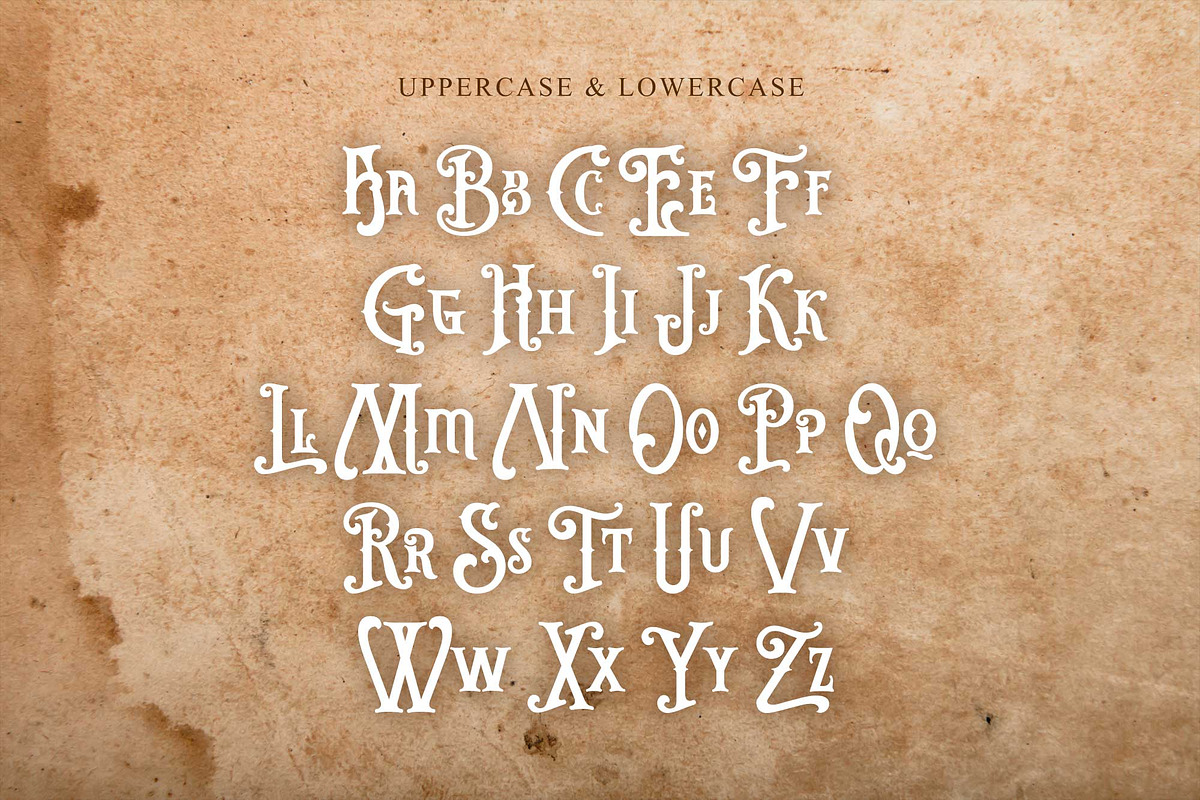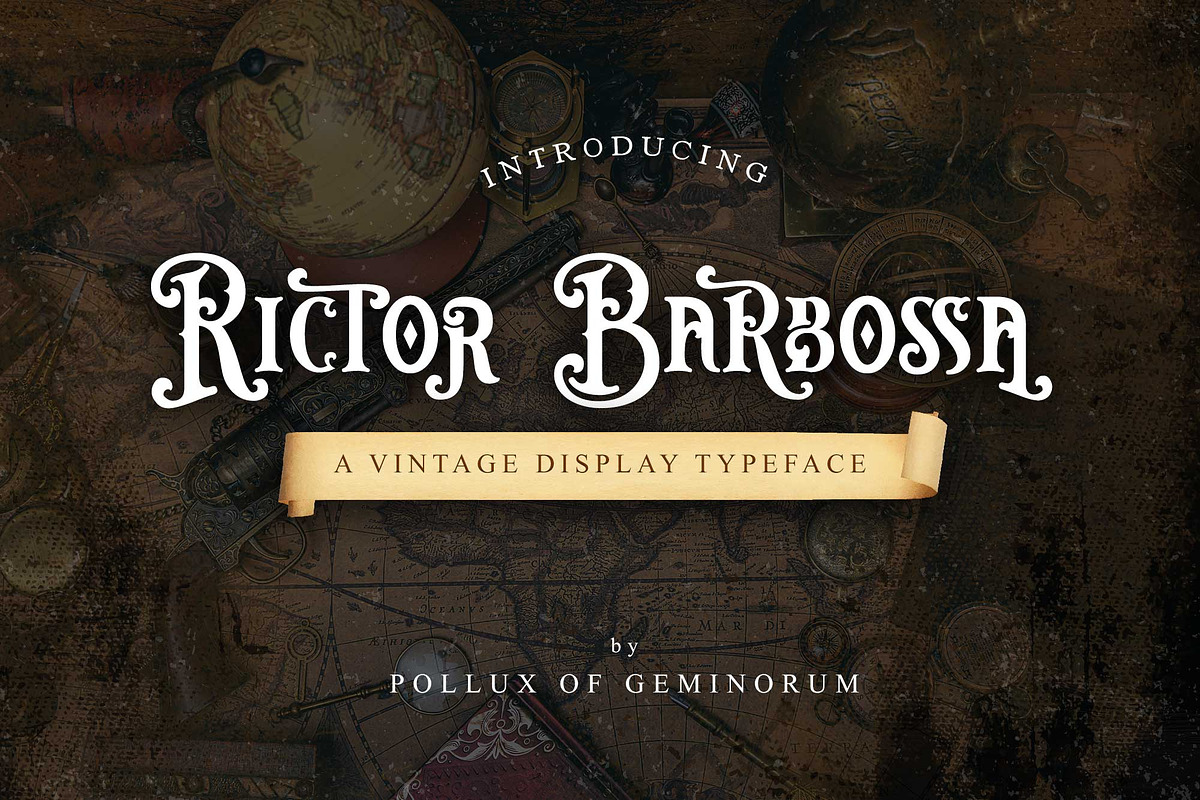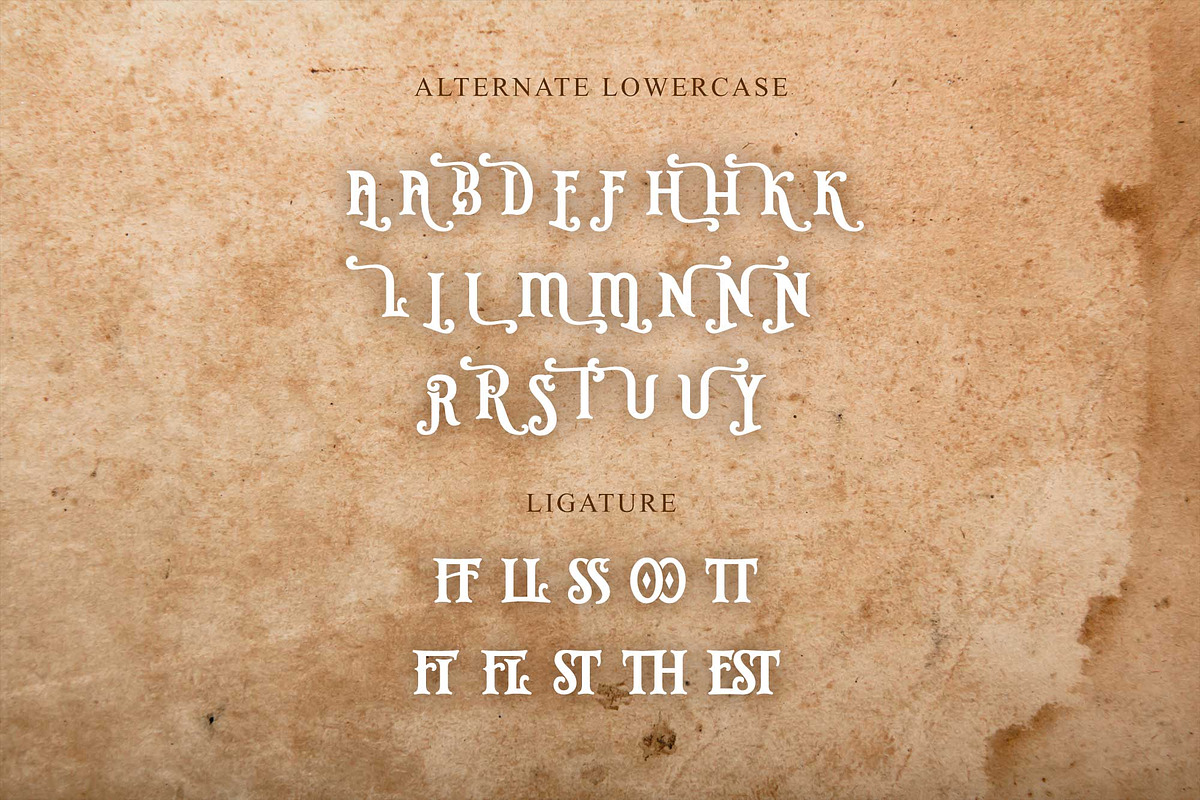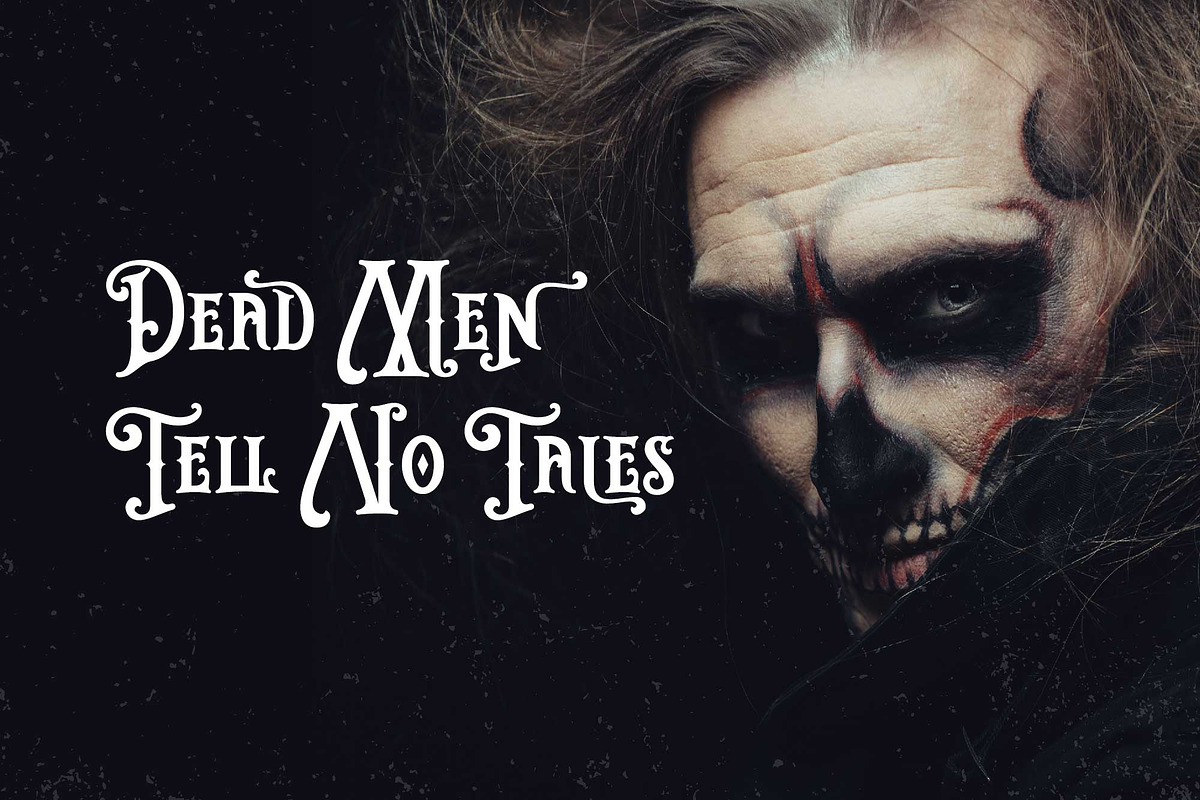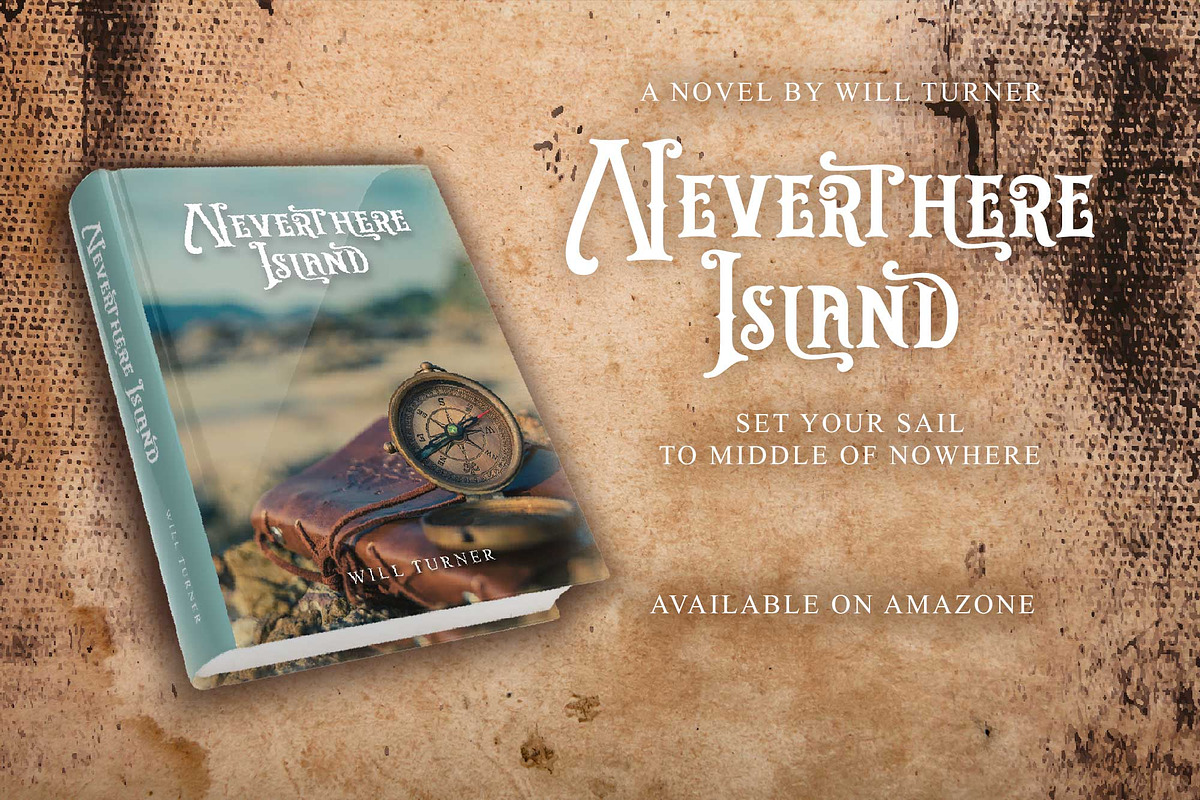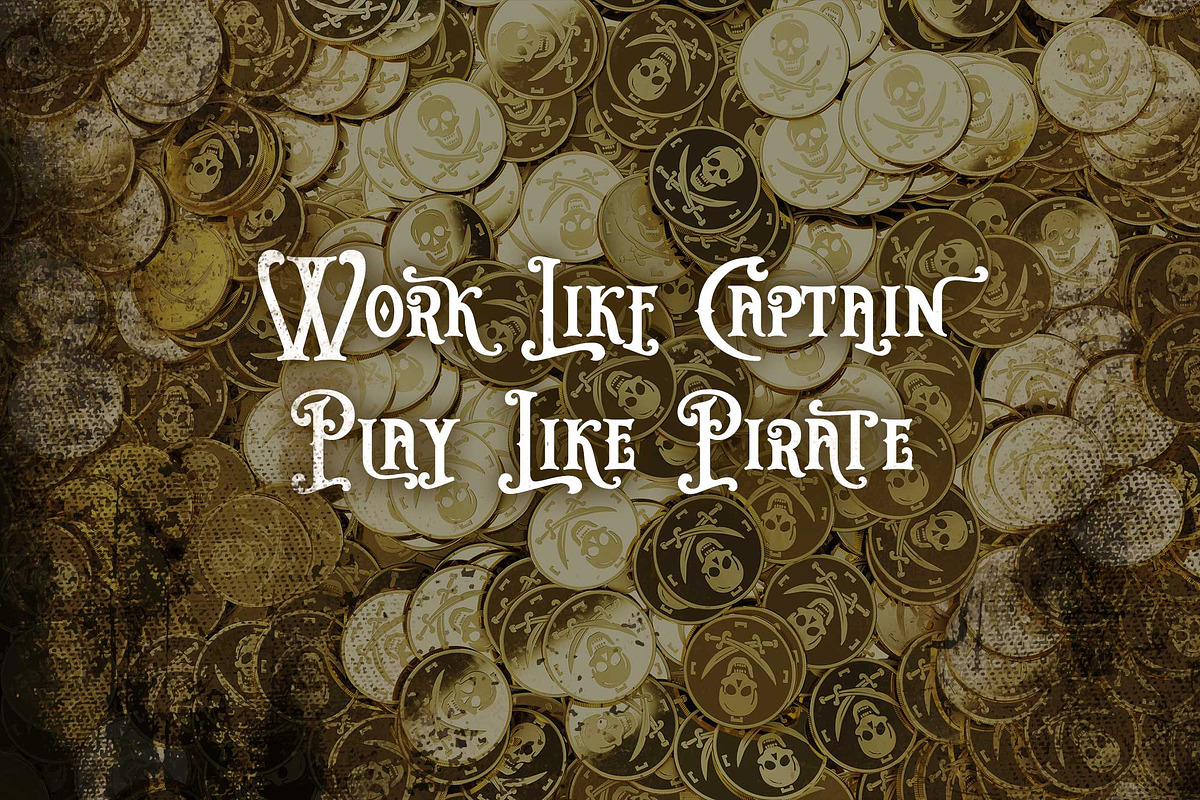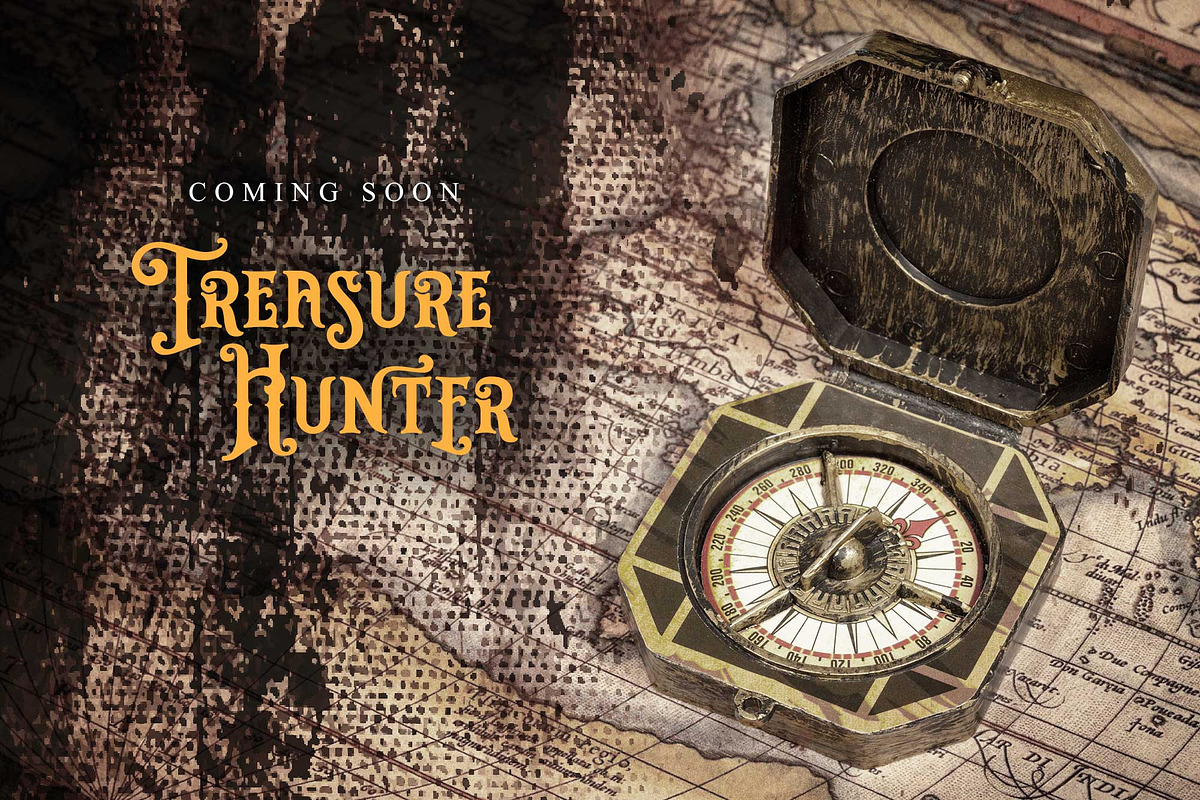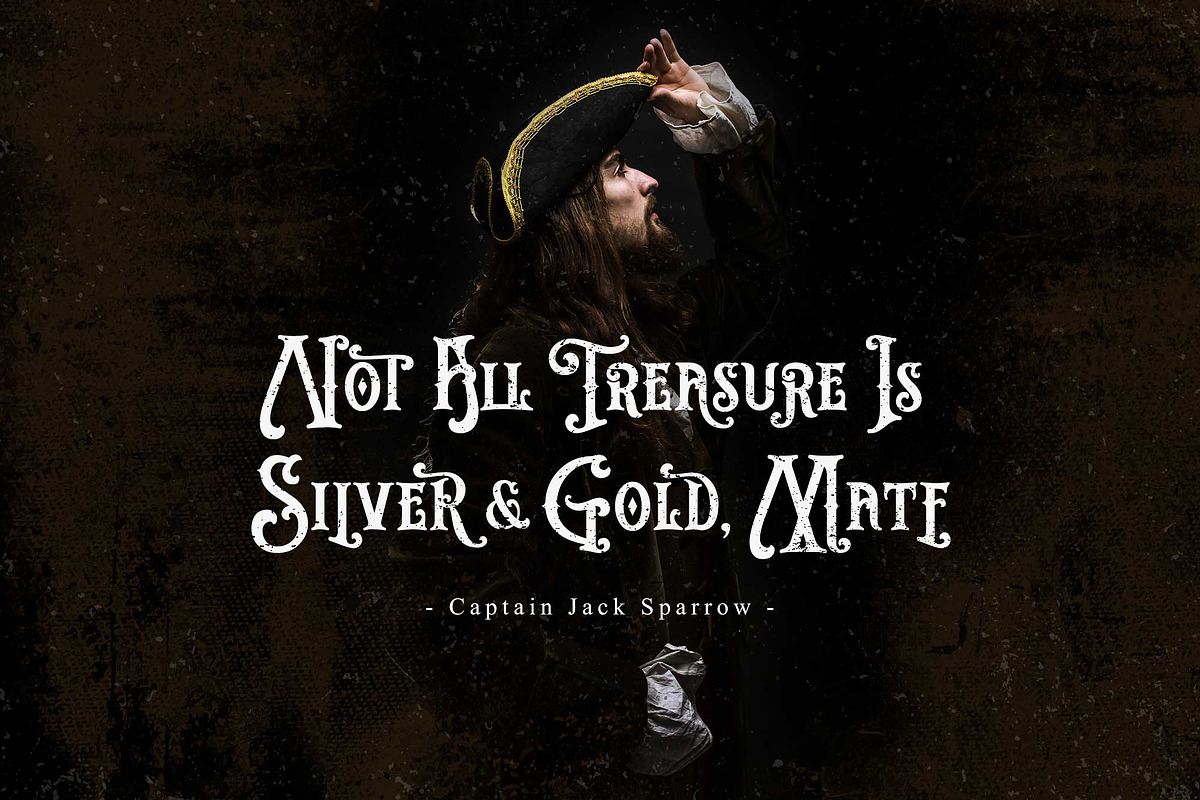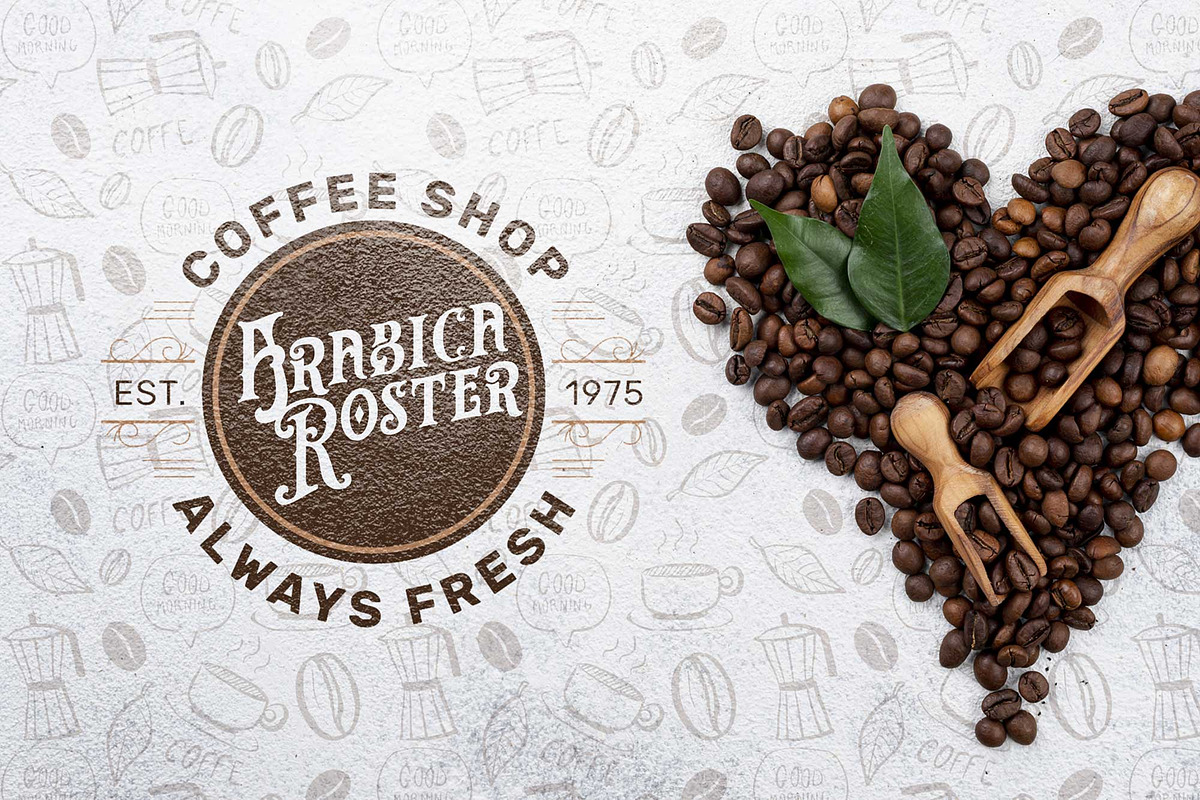
Rictor Barbossa - Vintage Pirate Fon
"Dead men tell no tales," but your designs certainly will. Introduce Rictor Barbossa, a cinematic vintage display font that captures the mysterious and adventurous spirit of the high seas. With its rugged yet decorative letterforms, this typeface is built for storytellers and world-builders.
Rictor Barbossa is the ultimate choice for high-impact titles. Whether you are designing an epic pirate movie poster, a mysterious fantasy book cover, a gritty music album sleeve, or a unique brand identity for a themed bar, this font delivers a powerful, weathered aesthetic that feels both historic and legendary.
Design Features:
- Cinematic Vibe: Specifically crafted to evoke the era of nautical exploration and pirate lore.
- Rich Customization: Includes a variety of stylistic alternates and ligatures to create truly unique and custom-looking typography.
- Space-Efficient Display: Tall and bold architecture, perfect for headlines and signage.
- Global Reach: Full multilingual support allows your message to sail across international borders.
- Full Uppercase & Lowercase Character Set
- Unique Stylistic Alternates & Smart Ligatures
- Numbers, Punctuation, and Multi-language Support